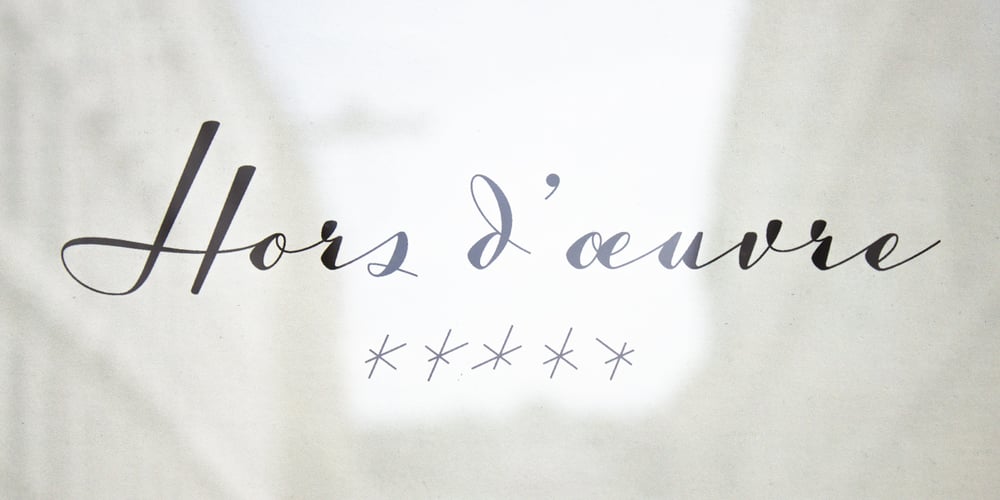
Luxus Brut Sparkling Font Family was designed by Roland Hörmann and published by phospho. Luxus Brut Sparkling contains 1 styles and family package options. Luxus Brut Sparkling developed from sketches for a bolder version of Luxus Brut that I made for a poster design. Interventions like slightly tightening the (still generous) spacing and amplifying the contrast between thick and thin strokes ended in a complete rework of the original font. All the shapes have been redrawn in respect of their distinctive origin in mid 1900’s signage lettering. It has now even more timeless elegance!